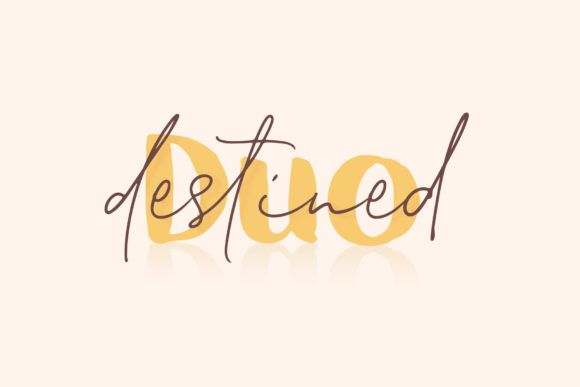
Introducing the Destined Duo Font: Elevate Your Designs with Elegance and Sophistication
The world of typography has witnessed a significant evolution over the years, with designers continually seeking innovative and versatile fonts to make their projects stand out. Among the numerous font combinations available, the Destined Duo Font has emerged as a game-changer, pairing an elegant sans serif with an authentic script font. This stunning duo is designed to transform any design project into a masterpiece, offering a perfect blend of modernity and sophistication.
The Destined Duo: A Perfect Harmony of Fonts
The Destined Duo Font is a thoughtfully crafted combination of two distinct fonts: a sleek sans serif and a beautiful script font. This pairing allows designers to create visually appealing and engaging designs that cater to a wide range of projects, from branding and advertising to packaging and digital media.
Sans Serif: The Epitome of Modern Elegance
The sans serif font in the Destined Duo is characterized by its clean lines, simplicity, and modern appeal. Its elegant design makes it an ideal choice for headlines, titles, and body text, providing a crisp and sophisticated look to any design project. The sans serif font is highly legible, ensuring that your message is conveyed clearly and effectively.
Script Font: A Touch of Authenticity and Sophistication
The script font in the Destined Duo adds a touch of authenticity and sophistication to your designs. With its fluid strokes and natural flow, this font is perfect for adding a personal touch to your projects. The script font can be used to create beautiful signatures, logos, and titles that exude elegance and refinement.
Why Choose the Destined Duo Font?
The Destined Duo Font offers a multitude of benefits that make it an attractive choice for designers. Some of the key advantages of using this font duo include:
- Versatility: The combination of a sans serif and script font provides endless possibilities for creative expression, allowing you to experiment with different design styles and ideas.
- Elegance: The Destined Duo Font exudes elegance and sophistication, making it perfect for high-end branding, luxury packaging, and premium advertising campaigns.
- Legibility: The sans serif font ensures excellent legibility, while the script font adds a touch of personality and flair to your designs.
- Time-Saving: With the Destined Duo Font, you can create stunning designs quickly and efficiently, saving you time and effort in the design process.
Applications of the Destined Duo Font
The Destined Duo Font is an incredibly versatile font duo that can be used in a wide range of design projects, including:
- Branding: Create a lasting impression with your brand identity using the Destined Duo Font. The elegant sans serif and authentic script font can be used to craft a unique and memorable brand image.
- Advertising: Make your advertising campaigns stand out with the Destined Duo Font. The font duo’s elegance and sophistication make it perfect for luxury brands, high-end products, and premium services.
- Packaging: Elevate your packaging designs with the Destined Duo Font. The font duo’s versatility and legibility make it an excellent choice for product labels, packaging materials, and point-of-sale displays.
- Digital Media: Use the Destined Duo Font to create engaging digital content, including social media graphics, blog posts, and website headers.
Tips for Using the Destined Duo Font
To get the most out of the Destined Duo Font, consider the following tips:
- Mix and Match: Experiment with different font combinations to find the perfect balance between the sans serif and script fonts.
- Use Hierarchy: Establish a clear hierarchy in your designs by using different font sizes, weights, and styles.
- Play with Colors: Take advantage of the Destined Duo Font’s versatility by experimenting with different colors and textures.
- Keep it Simple: Don’t overcomplicate your designs. Keep your message clear and concise, and let the Destined Duo Font do the rest.
The Destined Duo Font is a powerful and versatile font duo that can elevate your designs to new heights. With its elegant sans serif and authentic script font, this duo offers a perfect blend of modernity and sophistication. Whether you’re working on a branding project, advertising campaign, or packaging design, the Destined Duo Font is an excellent choice. So why wait? Unlock your creative potential with the Destined Duo Font and transform your designs into stunning works of art.